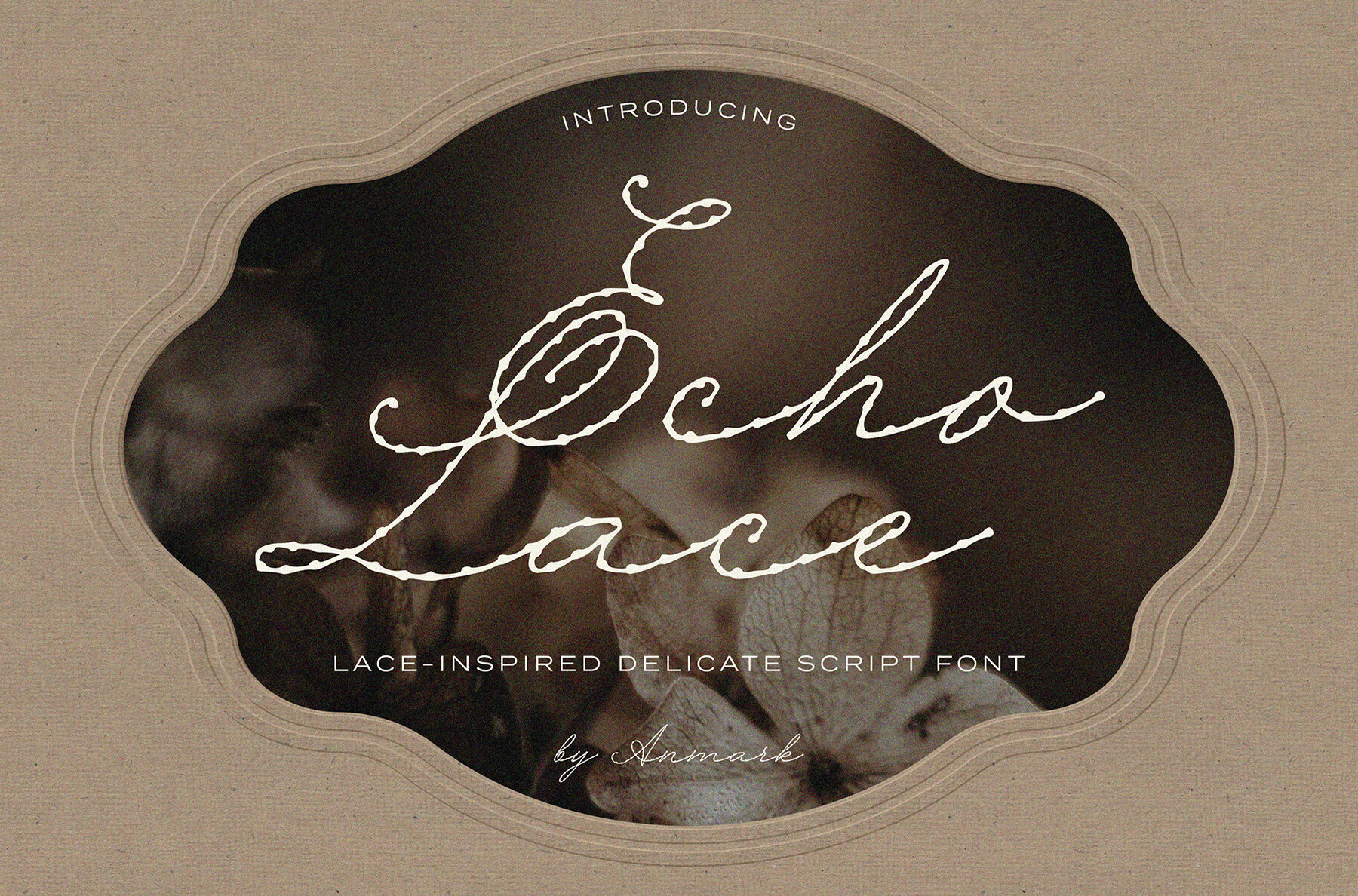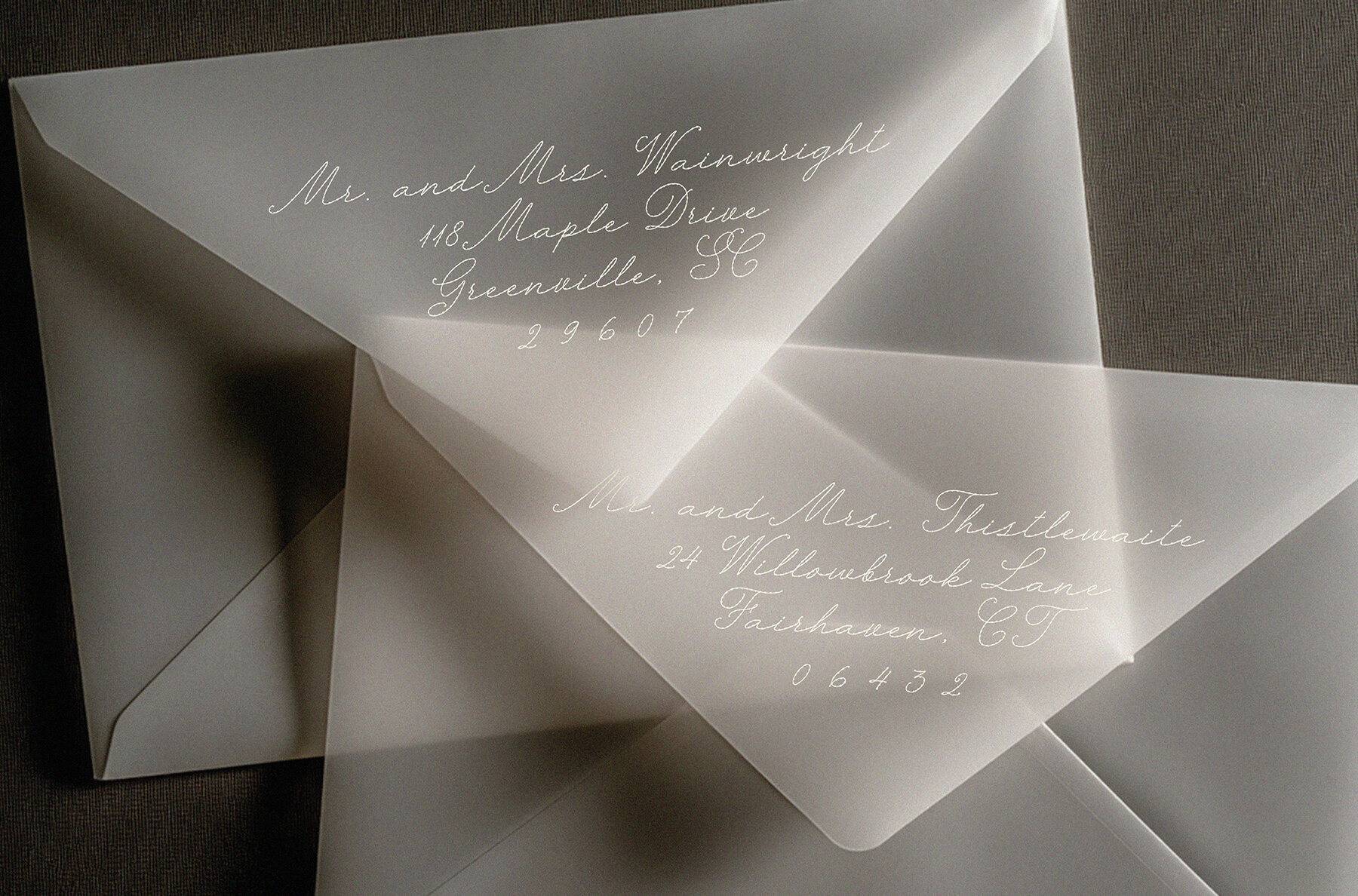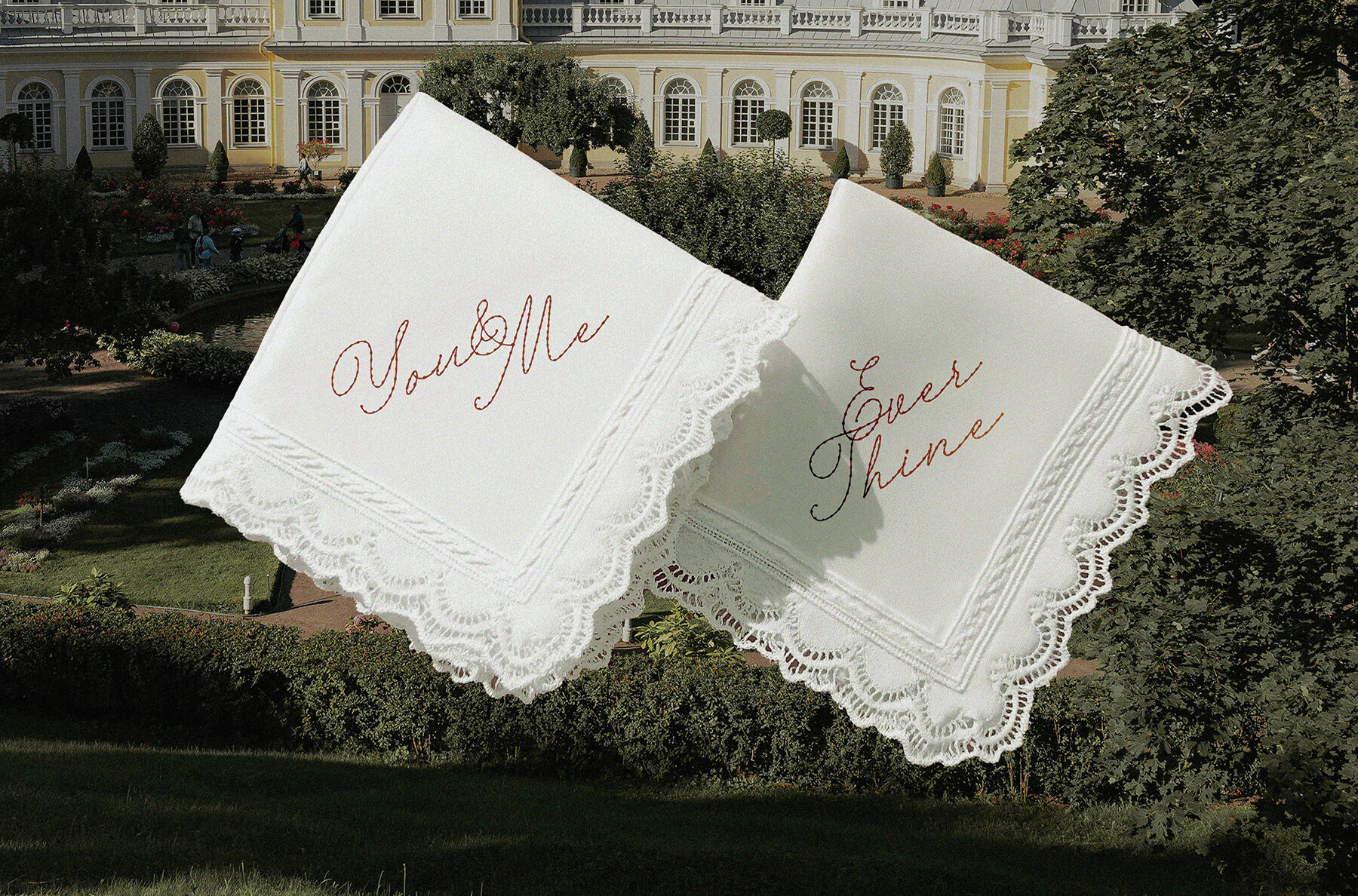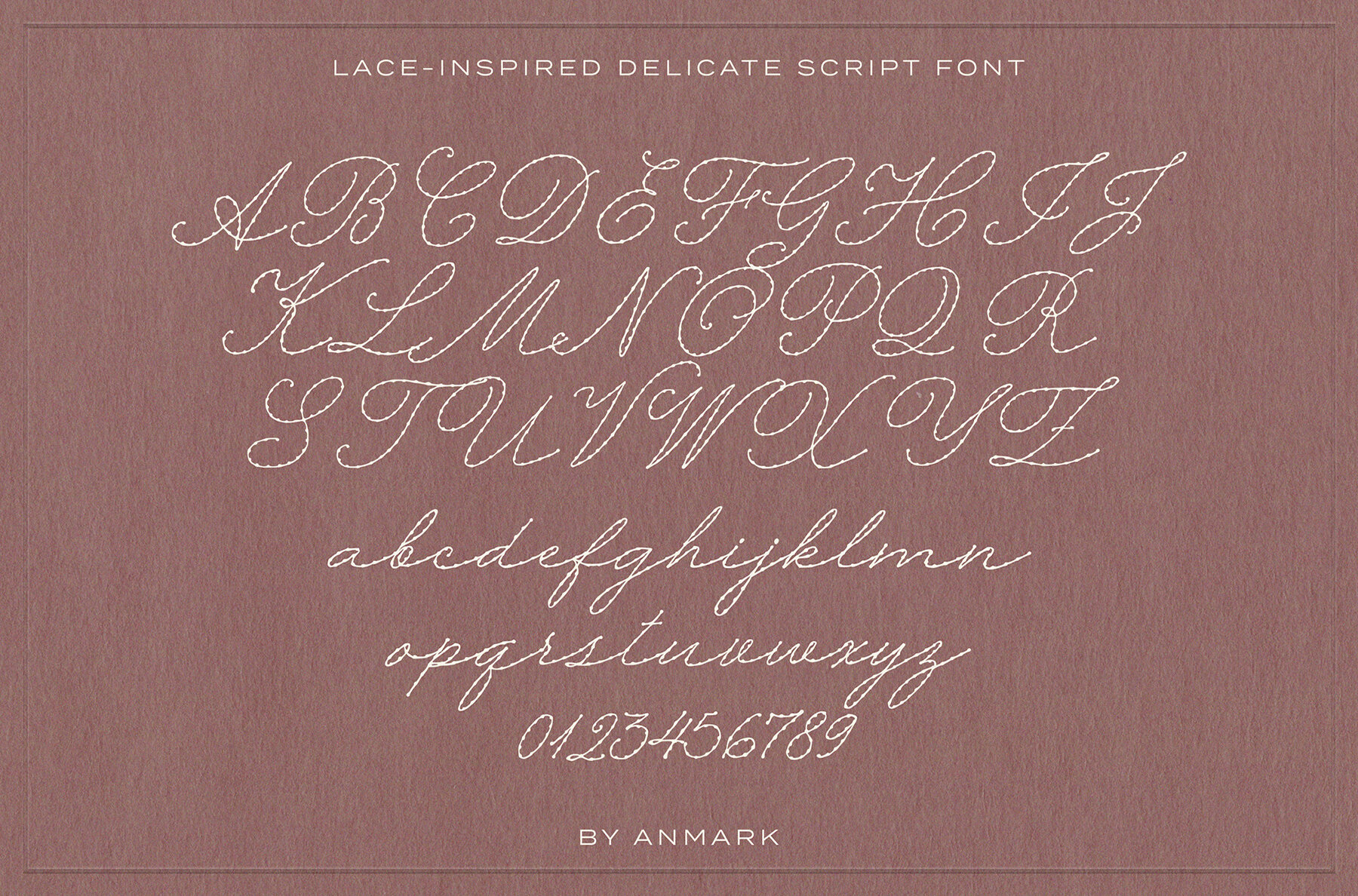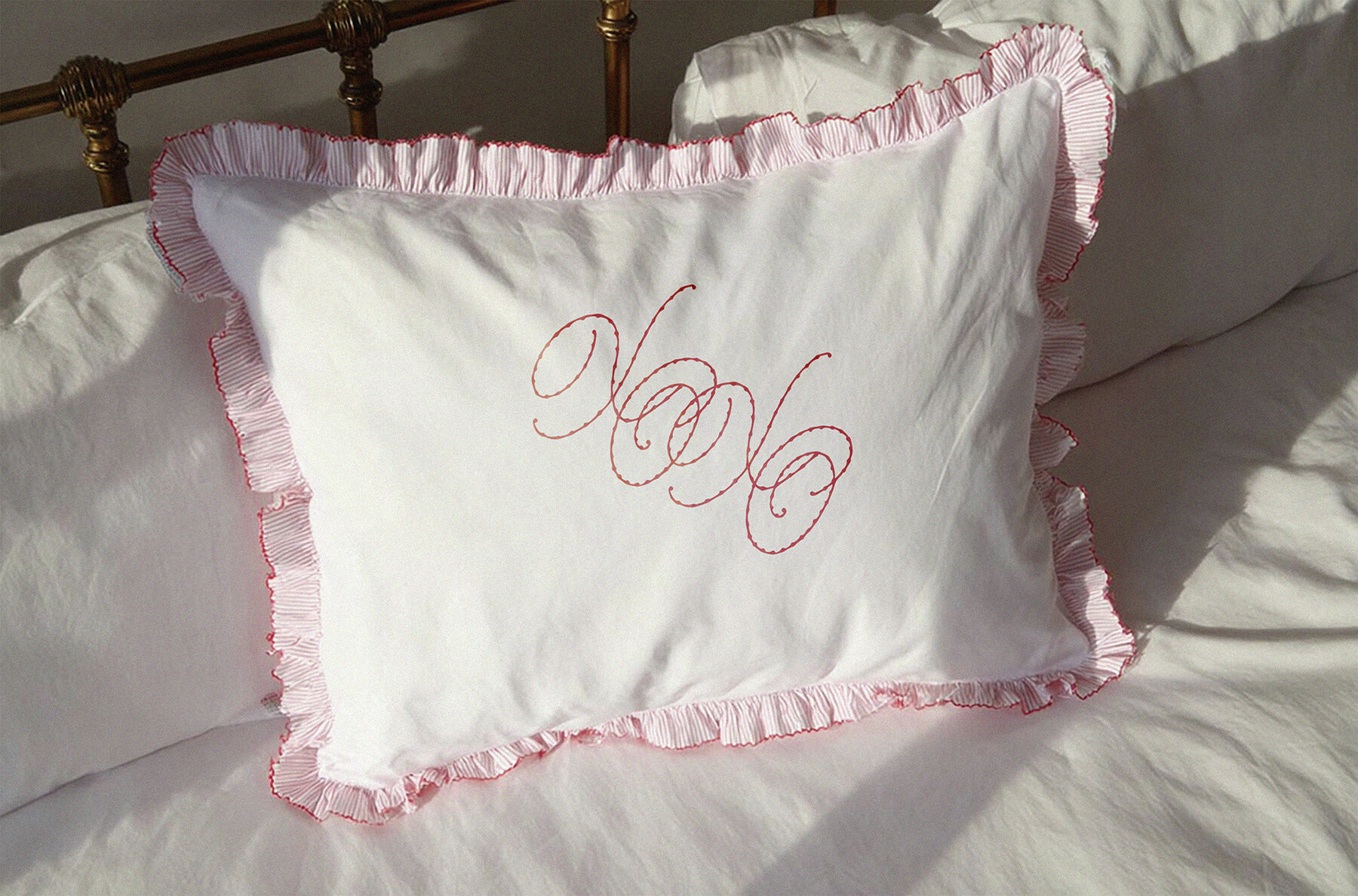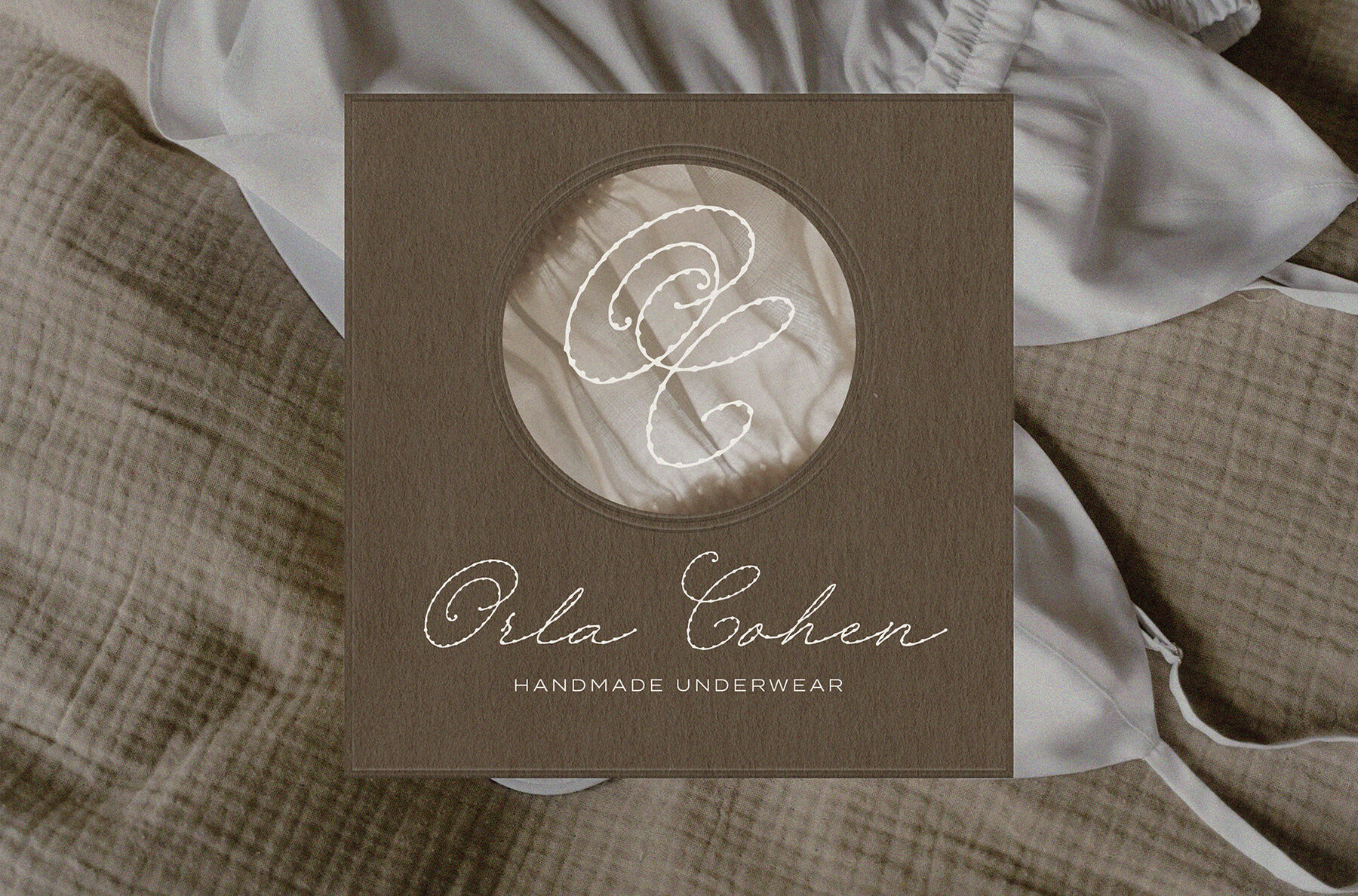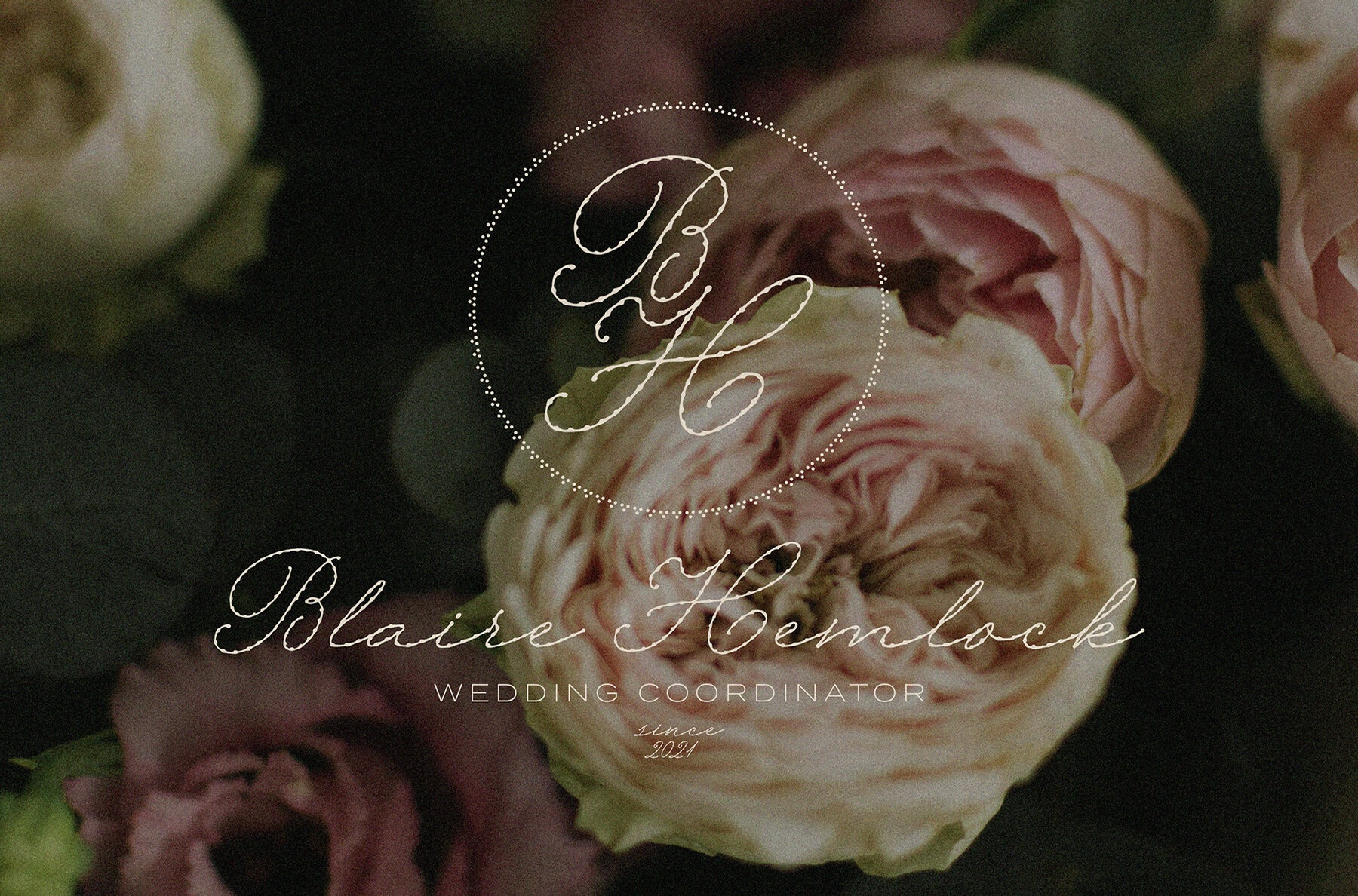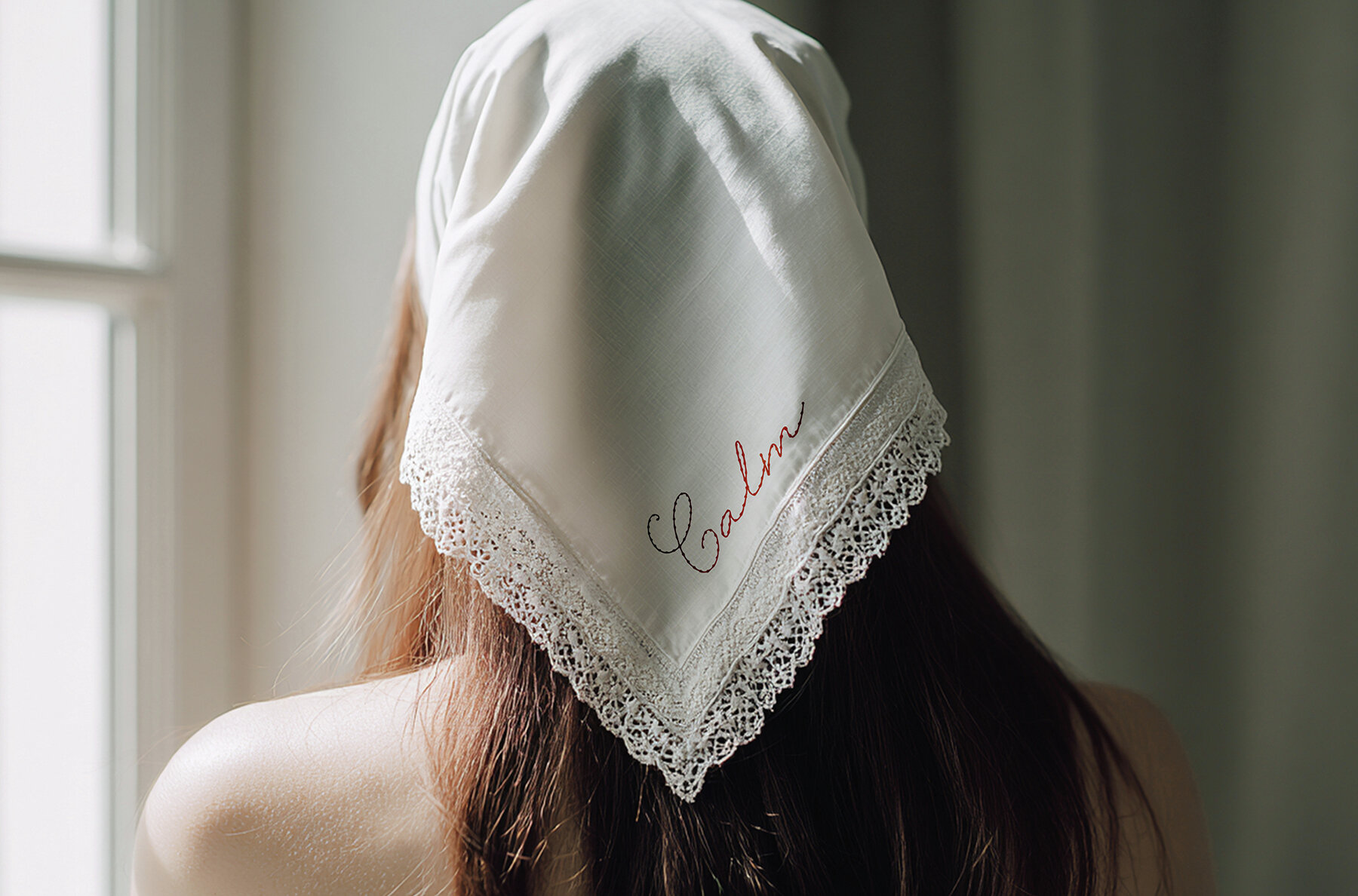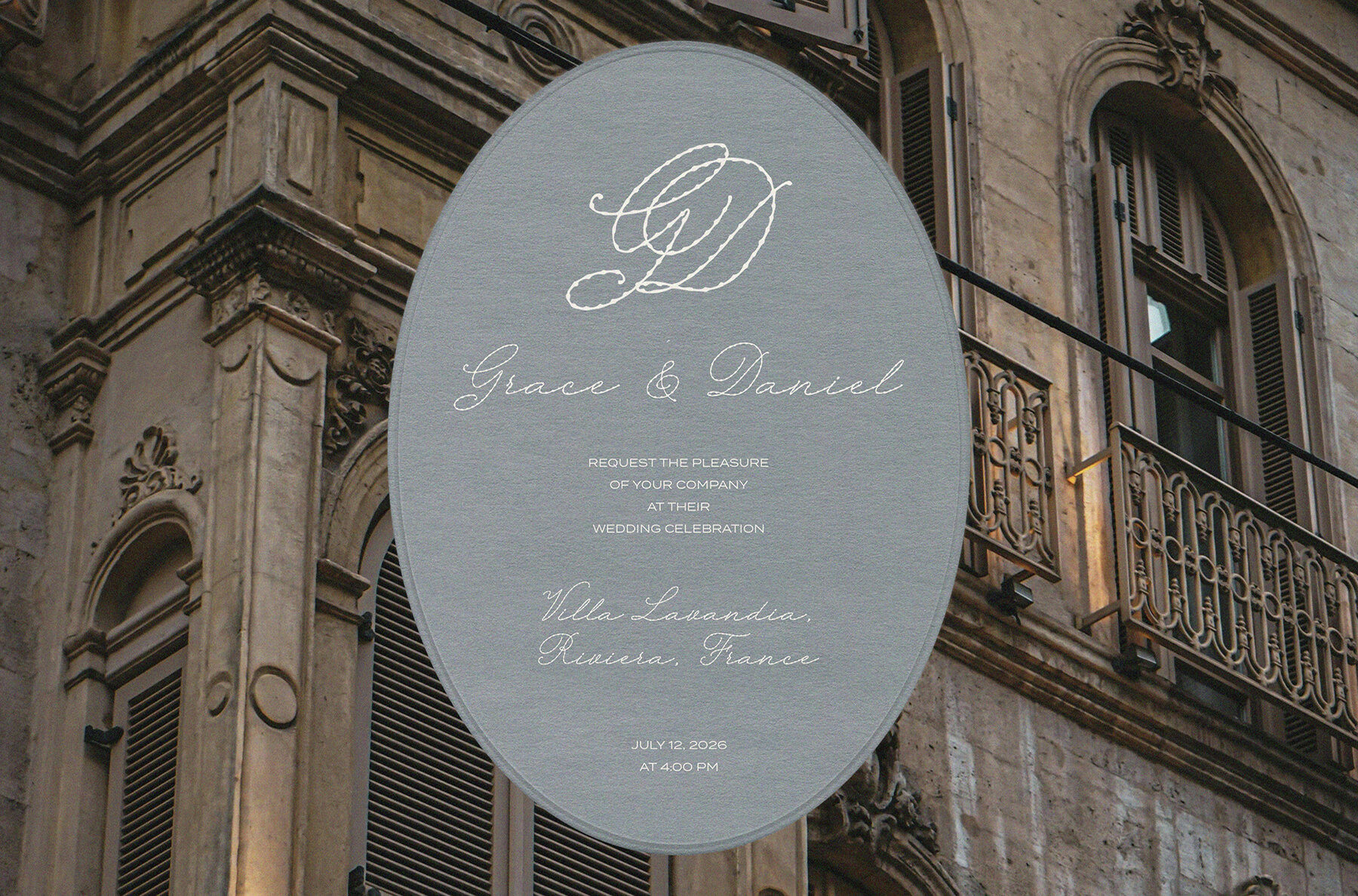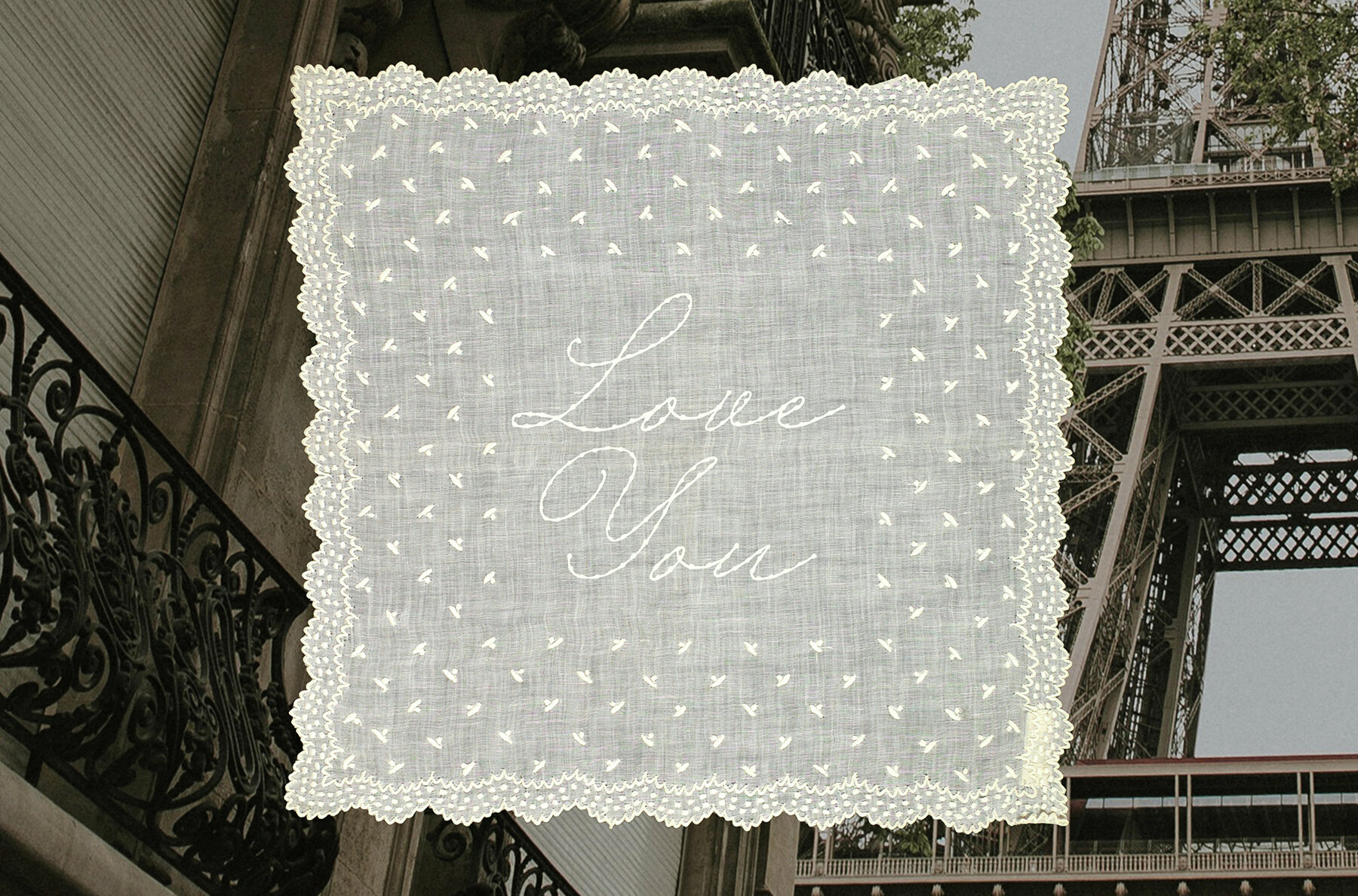
Echo Lace Delicate Font
Echo Lace
Echo Lace Delicate captures the gentle beauty of handwoven lace through elegant, flowing letterforms. Each curve recalls the careful artistry of embroidery, lending a sense of timeless charm to your work. The script’s vintage roots offer a romantic feel, perfectly balancing softness and sophistication. Designed for projects where finesse matters, Echo Lace creates an inviting, refined atmosphere. Its versatile style ensures a seamless fit for both contemporary and classic designs, especially when your goal is to add a touch of grace and warmth. Echo Lace Delicate is an ideal script for adding lace-like detail and subtle sophistication to creative projects that demand a romantic and polished effect.Echo Lace Delicate Script Font